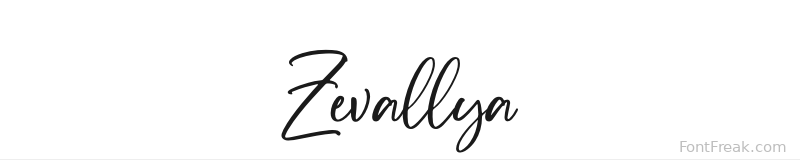
Zevallya
Zevallya, crafted by Perspectype Studio in 2021, is a stunning script font that exudes elegance and charm. This typeface stands out with its fluid, cursive strokes that create an inviting and warm appearance. The Zevallya font features a moderate stroke weight, providing a balance between legibility and artistic flair. The gentle contrast in the letters enhances its visual appeal, while the well-considered spacing ensures that each character is clearly defined, allowing for easy reading even at smaller sizes. The decorative elements in the font, such as swashes and loops, add a unique personality, making it perfect for projects that require a touch of sophistication.
Zevallya is ideal for a variety of applications. Its graceful style makes it an excellent choice for wedding invitations, where it can convey romance and celebration. Additionally, it can elevate movie posters with its dramatic flair, capturing attention and setting the tone for the film. Restaurant menus can also benefit from this font, as it lends a sense of refinement that complements upscale dining experiences. Content creators seeking to enhance their branding will find Zevallya a perfect fit for logos and social media graphics, providing a distinctive identity that resonates with audiences. Graphic designers and small business owners looking to create memorable designs will appreciate the versatility this font offers.
What makes the Zevallya font stand out in a crowded market is its ability to blend sophistication with approachability. Its unique character set, combined with its free availability for download, opens up endless possibilities for creative projects. With the Zevallya font free download, anyone can access this beautiful typeface and incorporate its charm into their work, making it a valuable addition to any designer's toolkit.